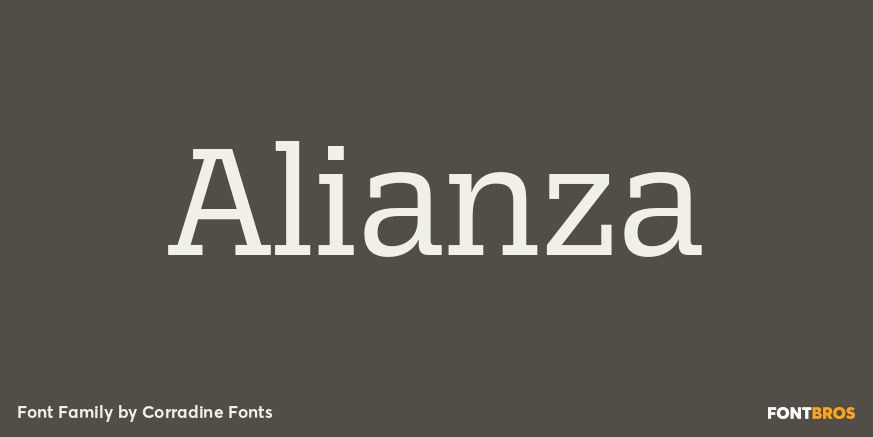
Alianza
About Alianza
This is a complex typographic system which includes three different but complementary styles so far: Slab, italic and script, with nine weights each one; plus three sets of ornamental fonts: labels, negative labels and ornaments. The soul of the family…